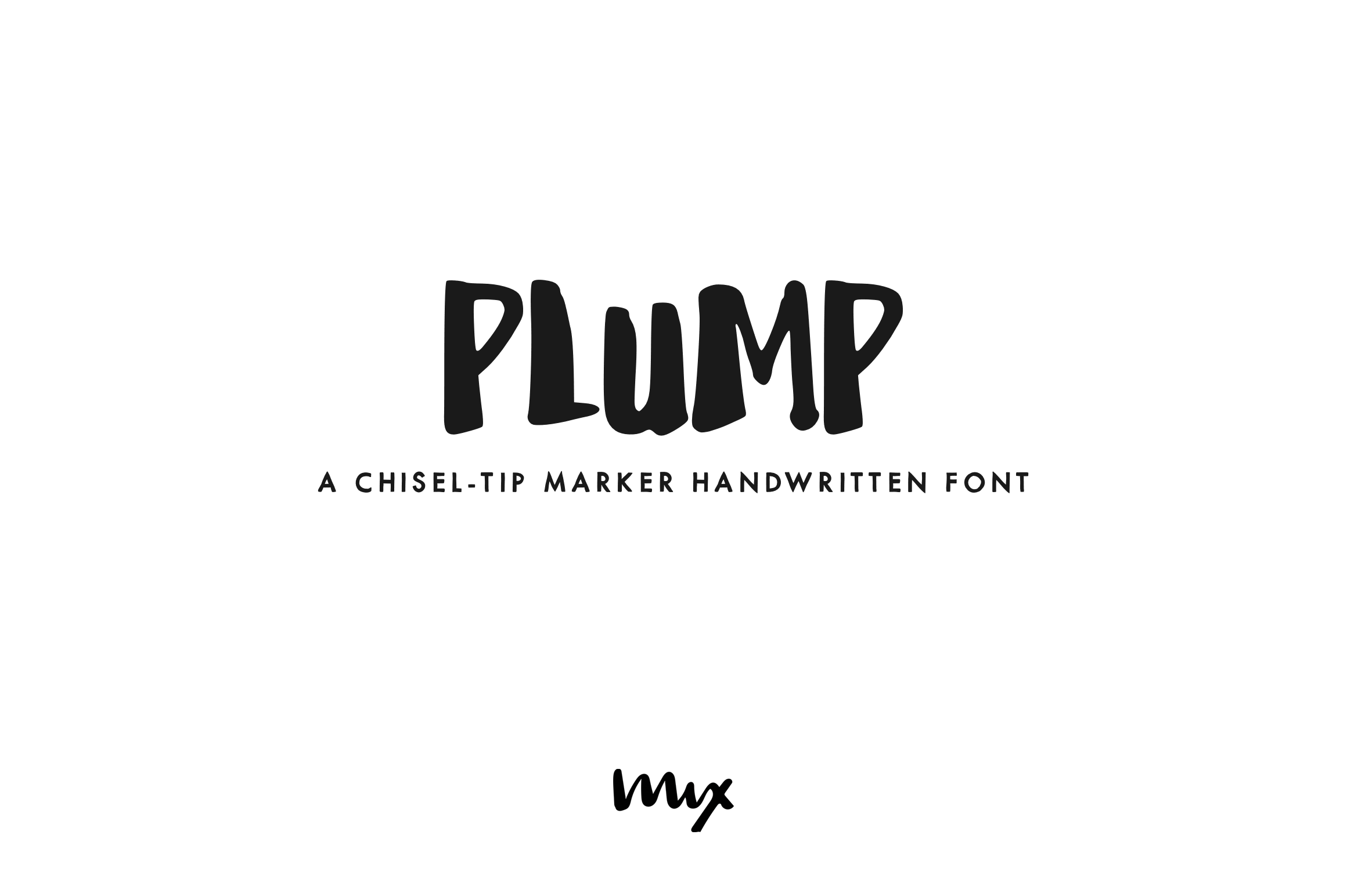
Plump — A Chisel-Tip Marker Font
MIX PLUMP is a handwritten font written out with a chisel-tip sharpie marker. It was then digitized and converted into a typeface.
PLUMP includes the following:
- ABCDEFGHIJKLMNOPQRSTUVWXYZ
- 0123456789 !@$#%&*()
- +=[]:;’”,.|/?{}“”’-¢€£